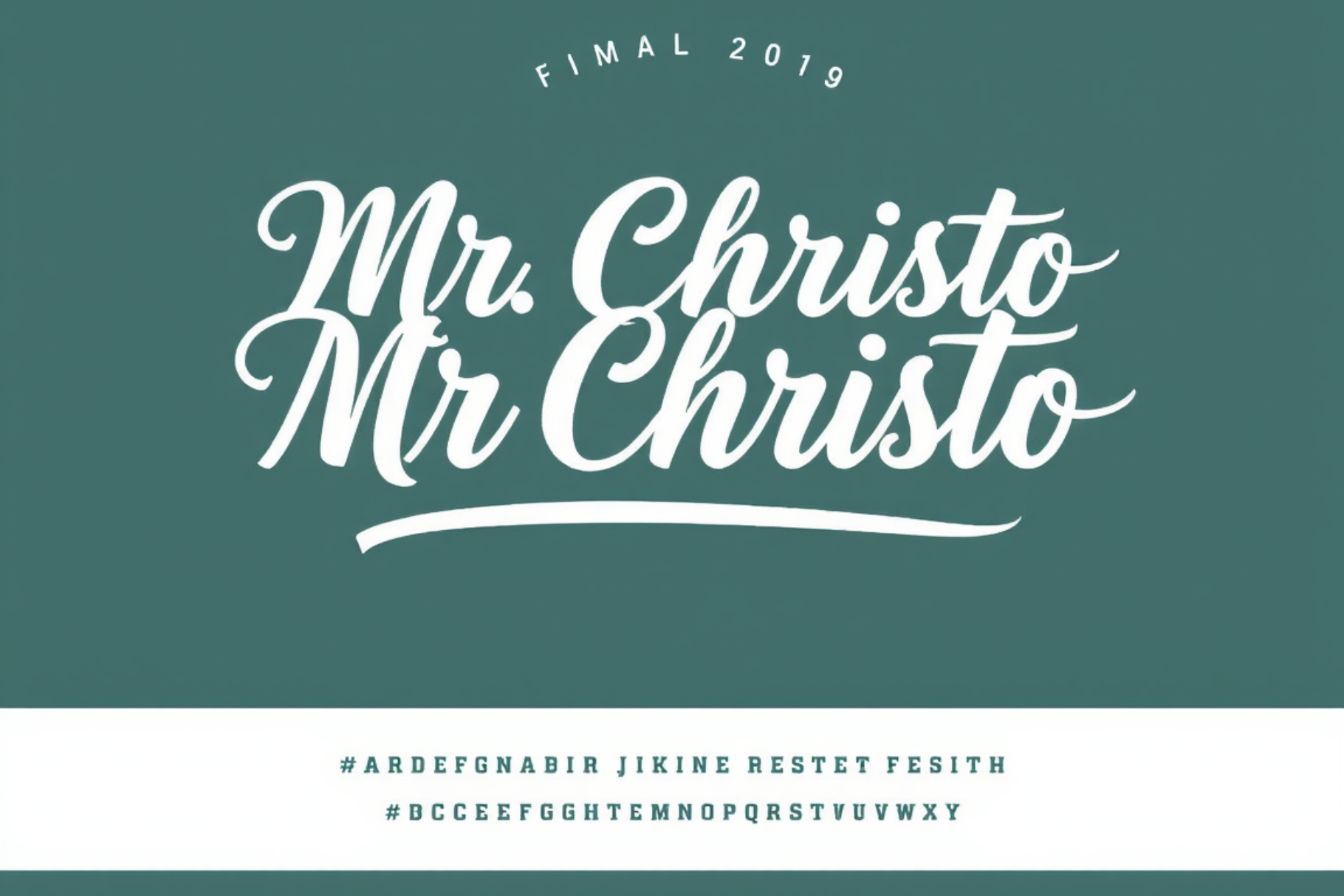
Mr Christo Calligraphy Script Font
Mr Christo Calligraphy Script Font is a beautifully crafted, elegant typeface inspired by traditional calligraphy. It features flowing, intricate strokes and a dynamic baseline, making it ideal for formal designs like wedding invitations, branding, logos, and greeting cards. With its sophisticated and artistic look, the font adds a touch of refinement and class to any project.